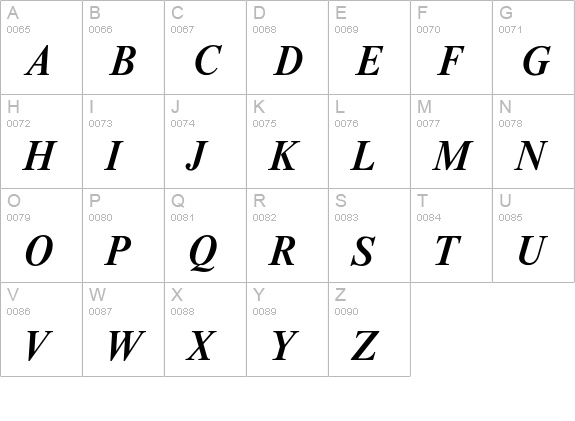
Riccione-MediumIta font is a stunning display typeface that exudes elegance and sophistication. With its sleek and modern design, this font is perfect for adding a touch of refinement to any project. The versatility of Riccione-MediumIta font makes it suitable for a wide range of applications, from logo design and branding to editorial layouts and packaging. Its clean lines and balanced proportions create a harmonious and visually appealing composition, making it a go-to choice for designers looking to make a strong visual impact. One of the highlights of Riccione-MediumIta font is that it is freely available to download at FontsMarket.com. This means that designers can easily access and incorporate this beautiful typeface into their projects without any hassle or extra costs. With its availability as a free resource, Riccione-MediumIta font empowers designers to create stunning visuals without breaking the bank. The attention to detail in the design of Riccione-MediumIta font is evident in its carefully crafted letterforms. Each character is meticulously designed to maintain legibility while still maintaining its unique personality. The result is a font that is not only visually appealing but also easy to read, ensuring that your message is effectively conveyed to your audience. Whether you're designing a sleek website, a stylish magazine layout, or a captivating advertisement, Riccione-MediumIta font is sure to elevate your project to the next level. Its refined aesthetics and versatility make it a valuable addition to any designer's toolkit. Download Riccione-MediumIta font for free at FontsMarket.com and let your creativity soar.